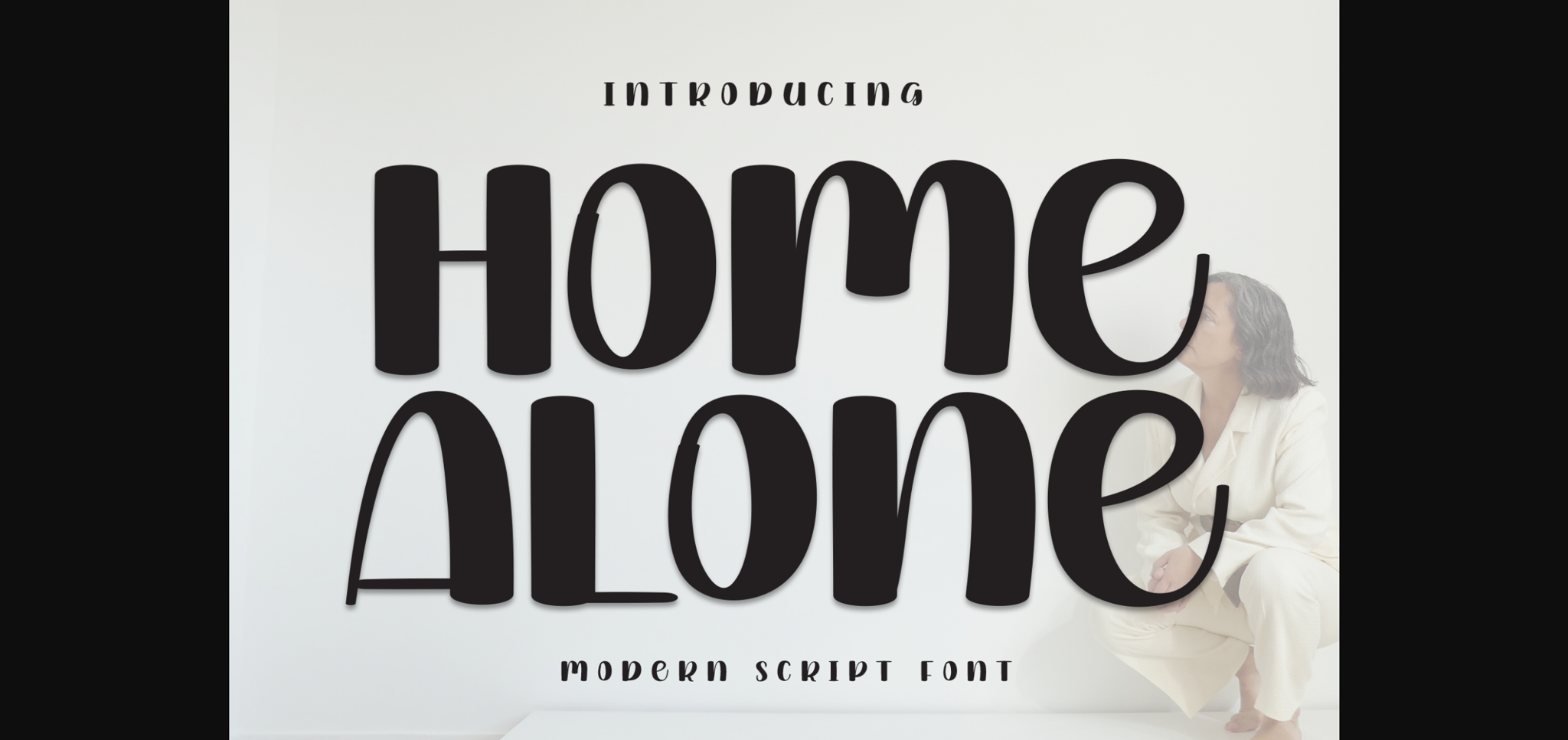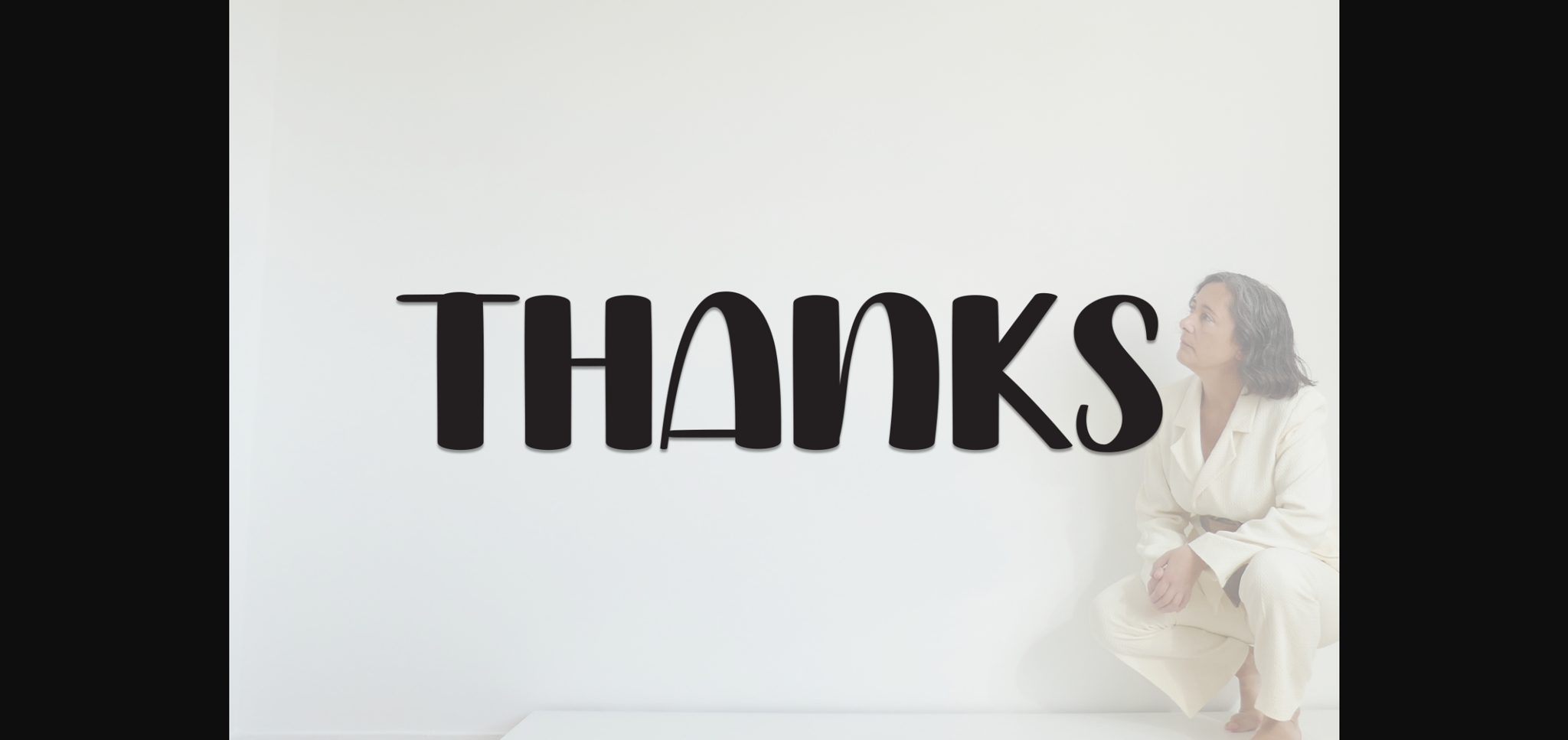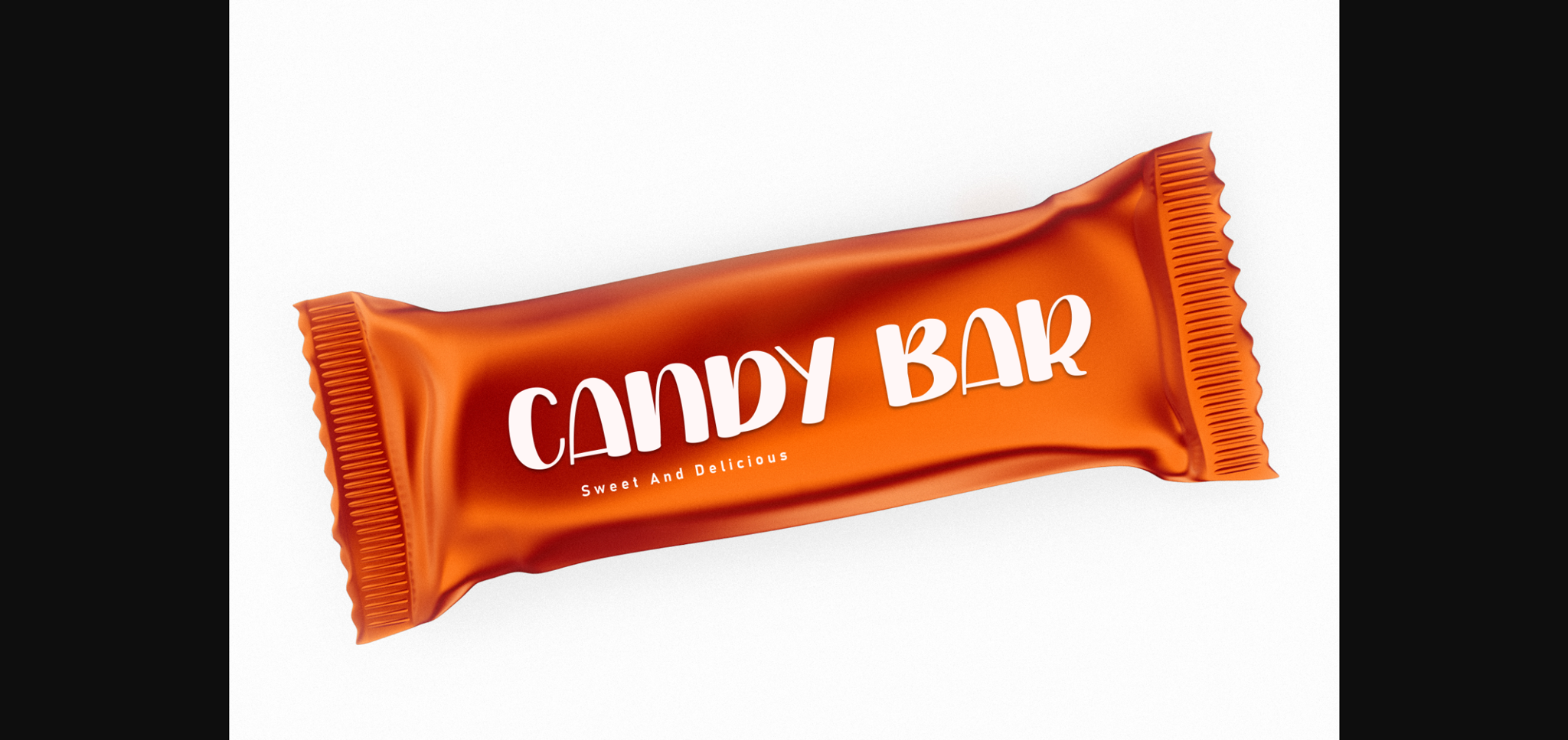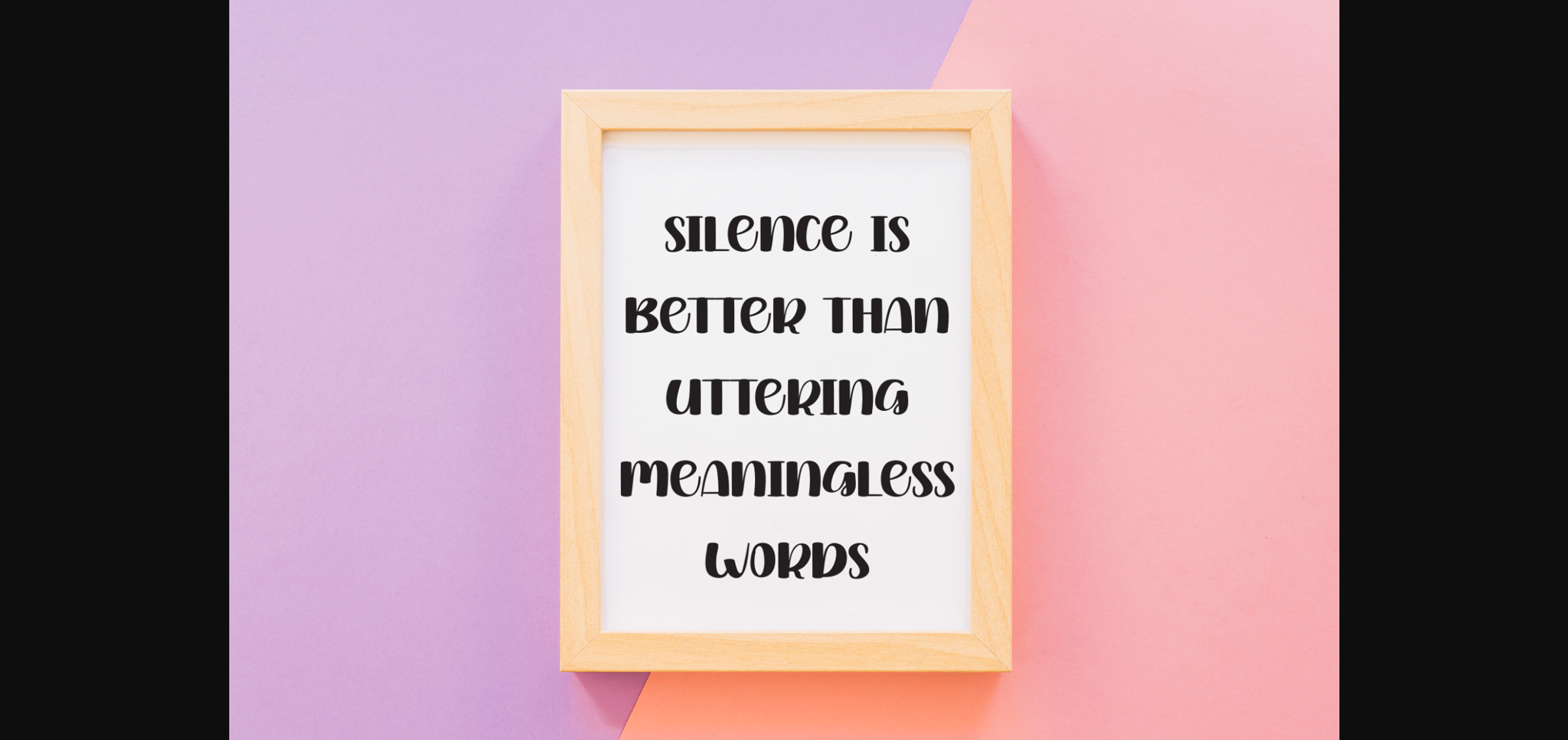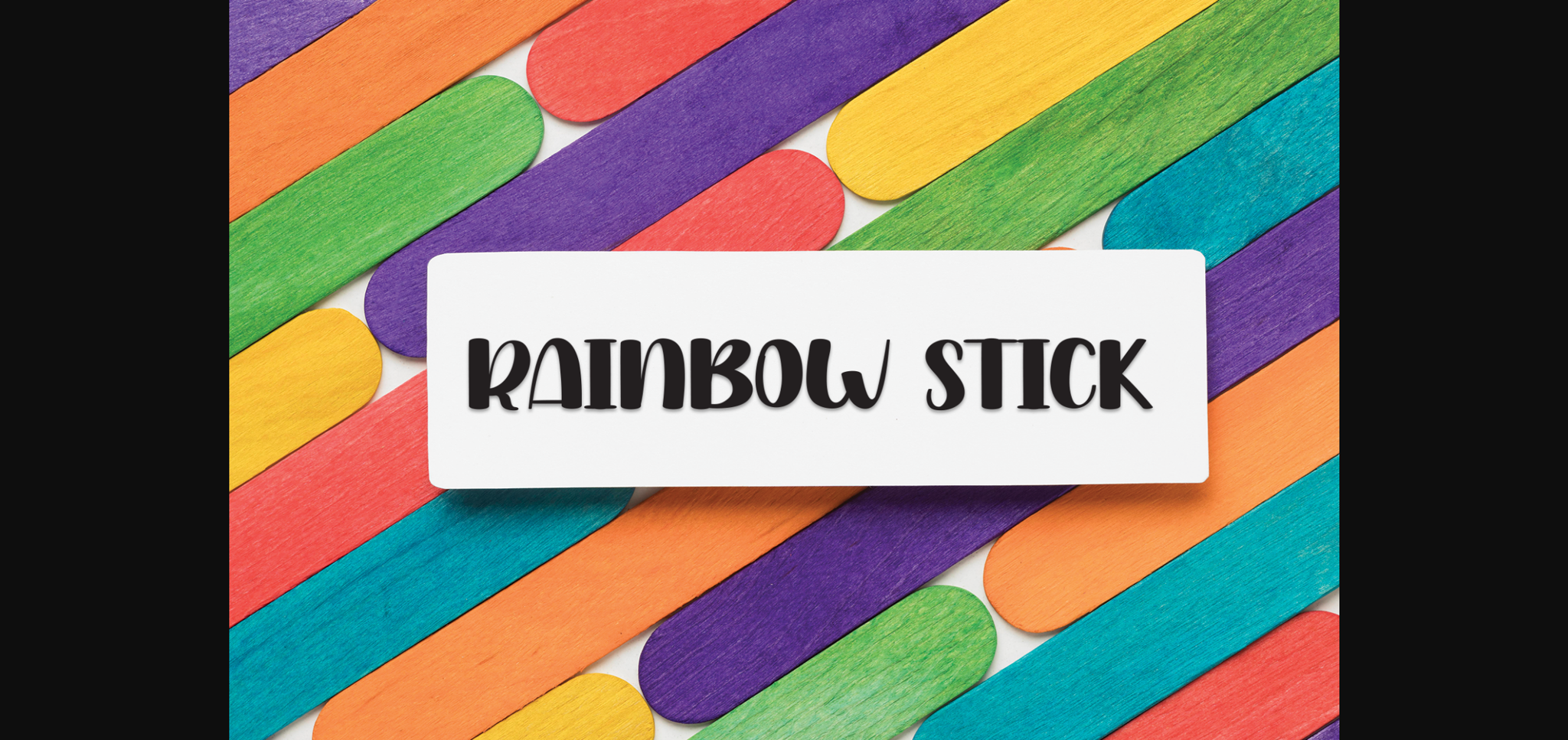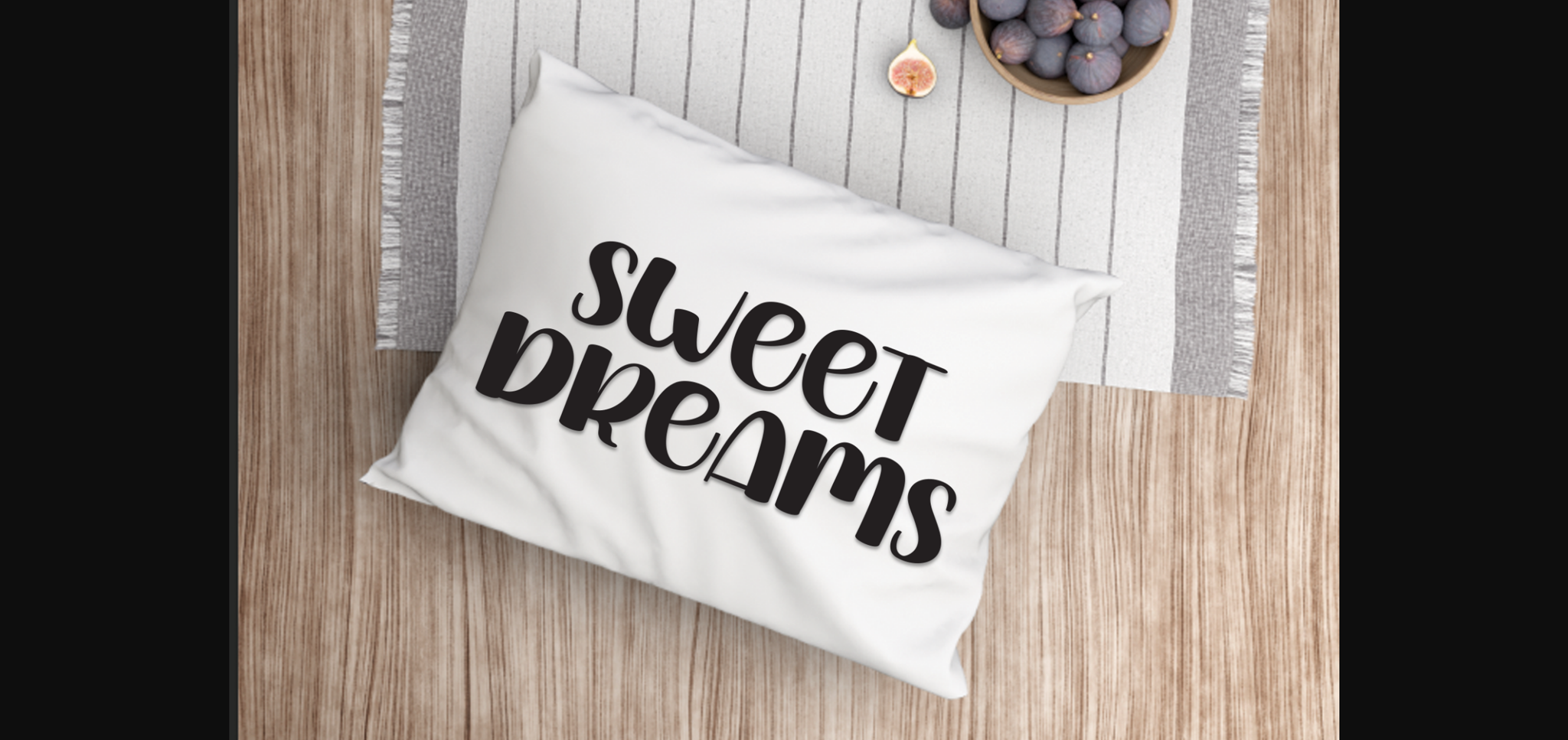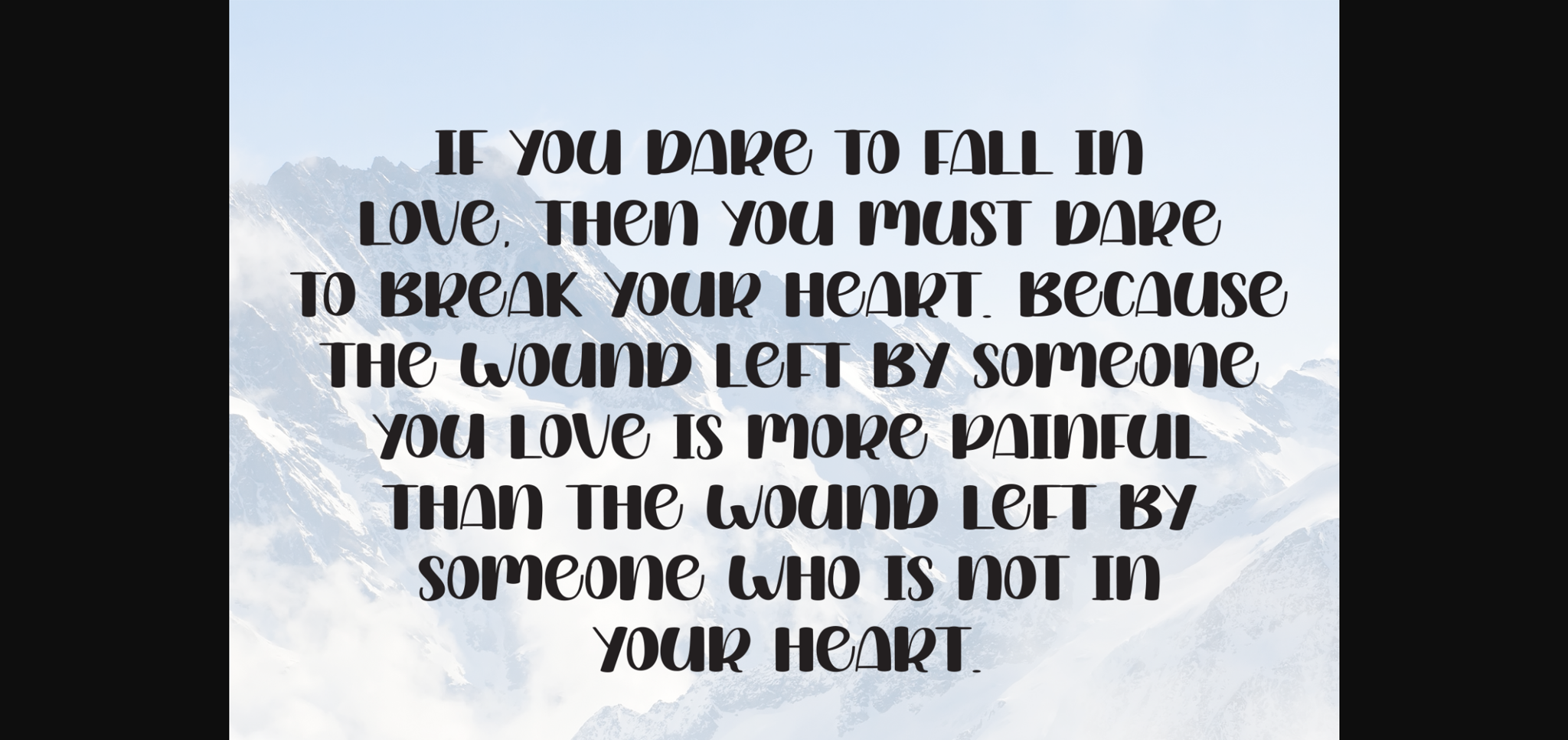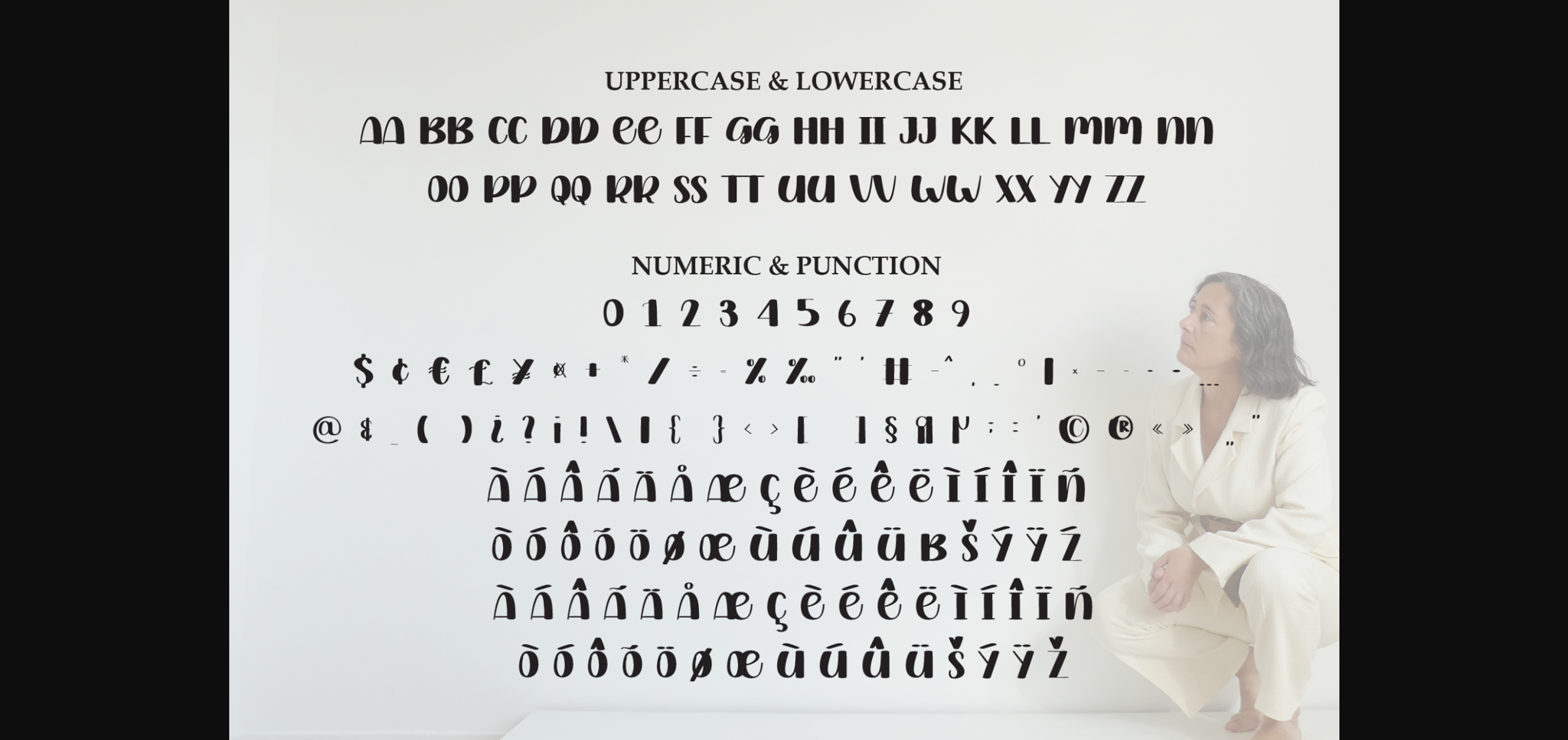
HomeSans Serif FontsHome Alone Font Sans Serif Fonts Home Alone Font FacebookXPinterestWhatsApp 1 of 10 ... Home Alone Font Poster 2... Home Alone Font Poster 3... Home Alone Font Poster 4... Home Alone Font Poster 5... Home Alone Font Poster 6... Home Alone Font Poster 7... Home Alone Font Poster 8... Home Alone Font Poster 9... Home Alone Font Poster 10... About Home Alone Font Home Alone is a sweet and friendly sans-serif font. Cute yet versatile, this font is ideal for writing wedding invitations, cards, or any other design that might need a fresh touch! DOWNLOAD NOW People also explored Vuku Font Holiday Light Duo Font Fabrica Font Speech Bubbles Font Swashington Ray Brooks Font Fantasia Font Sweet Butterfly Font Flowerista Font 329 0 TagsHome Alone Font Previous articleHomestay FontNext articleHelloteacher Font LEAVE A REPLY Cancel reply Comment: Please enter your comment! Name:* Please enter your name here Email:* You have entered an incorrect email address! Please enter your email address here Website: Save my name, email, and website in this browser for the next time I comment. Personal Use Free Monogram Calligraphy Personal Use Free Read more about this font Proudly Personal Use Free Read more about this font Amellis Path Personal Use Free Read more about this font Lost Treasure Personal Use Free Read more about this font BLOG 5 Fonts That Will Dominate Design Trends in 2026 5 Fonts for 2026 That Will Dominate Design Trends Typography plays a critical role in visual communication, and as we look ahead to 2026, it’s... Top 10 Handwritten Fonts That Elevate Your Designs How to Install and Use Fonts on Windows, macOS, and Web Projects To increase your work productivity, choose the most readable fonts.